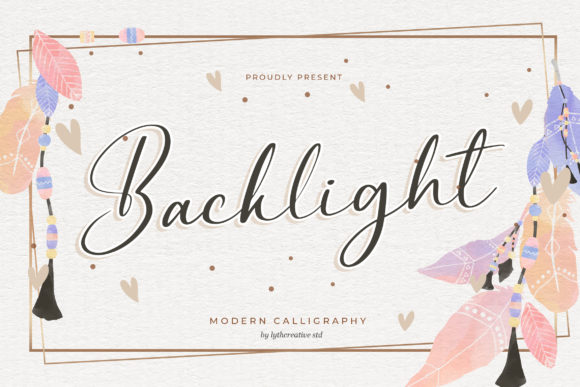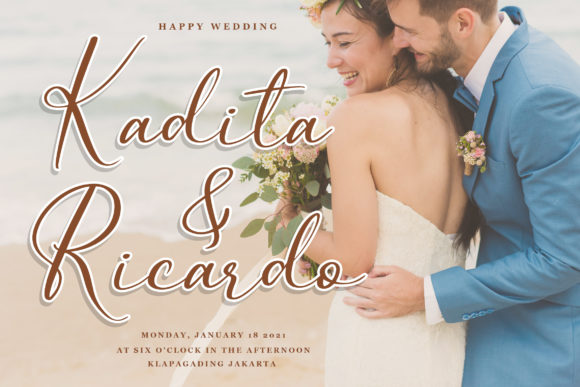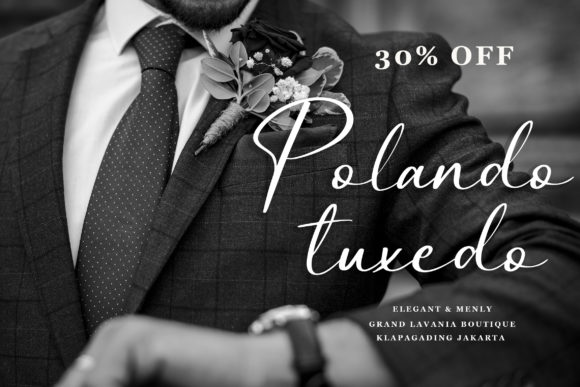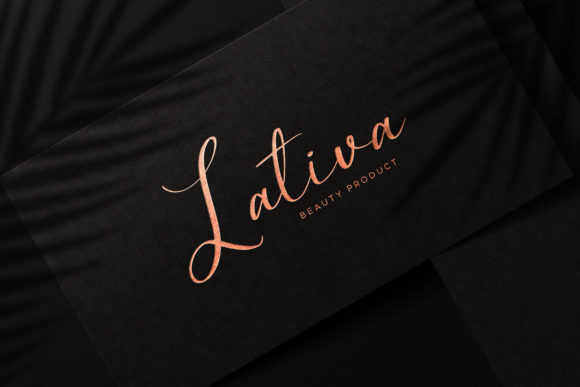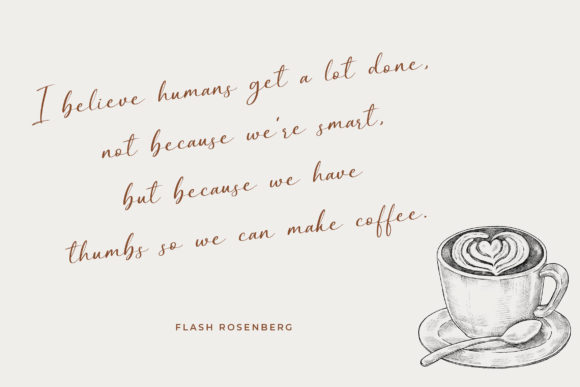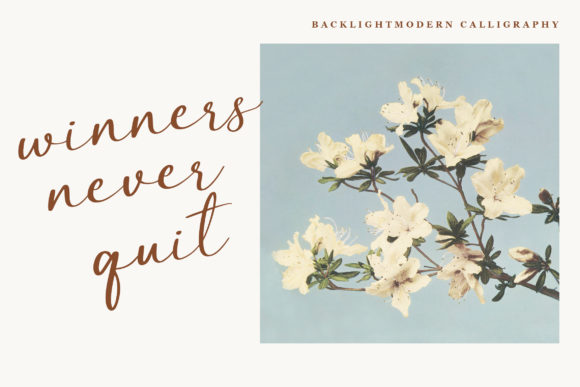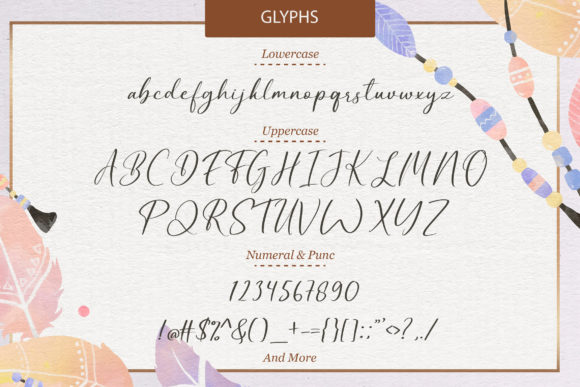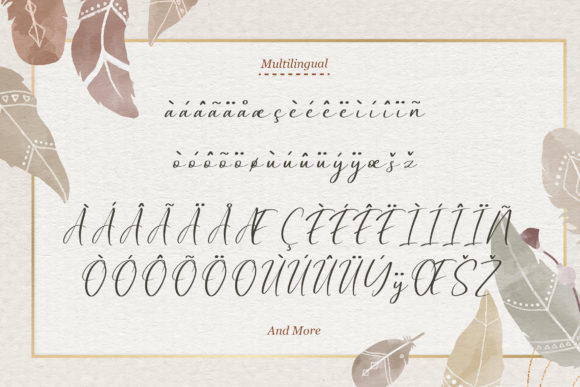
Backlight Font
About Backlight Font
Backlight is a cute handwritten font. Its sweet and full of life style makes this font a wonderful choice for brightening up your designs. Add it confidently to your projects, and you will love the results.